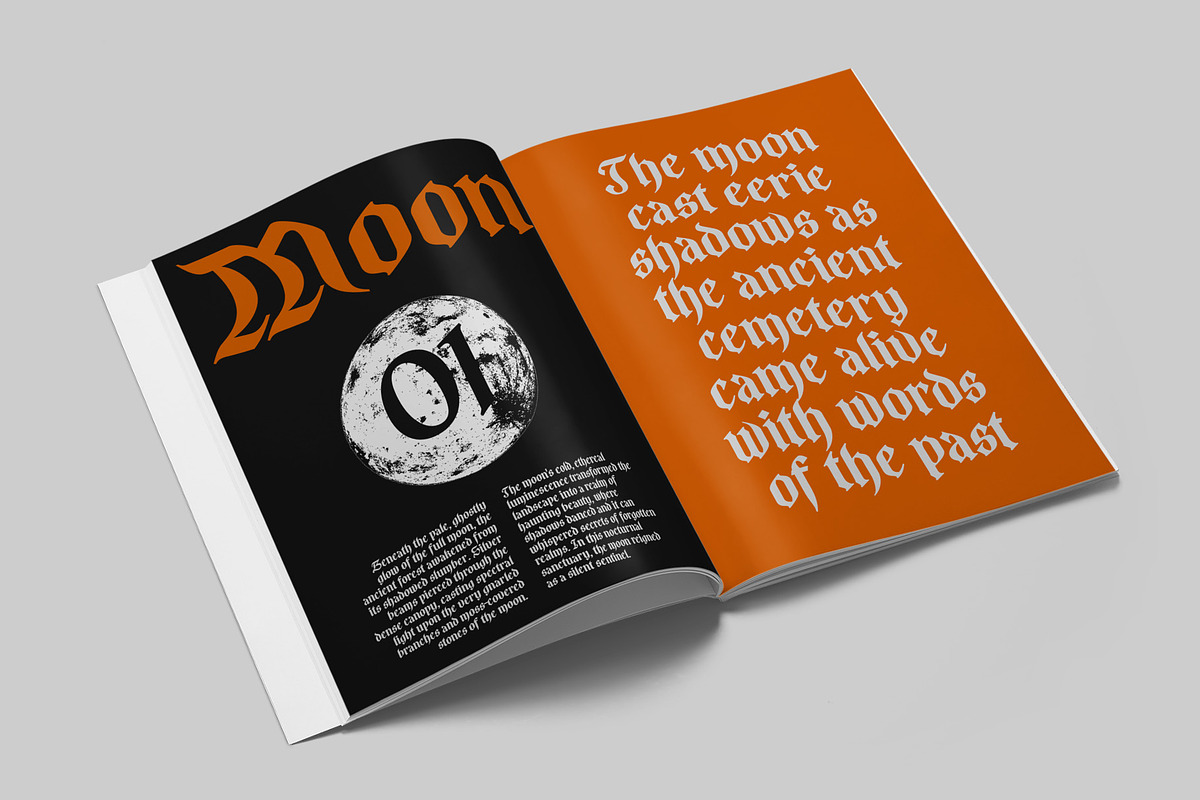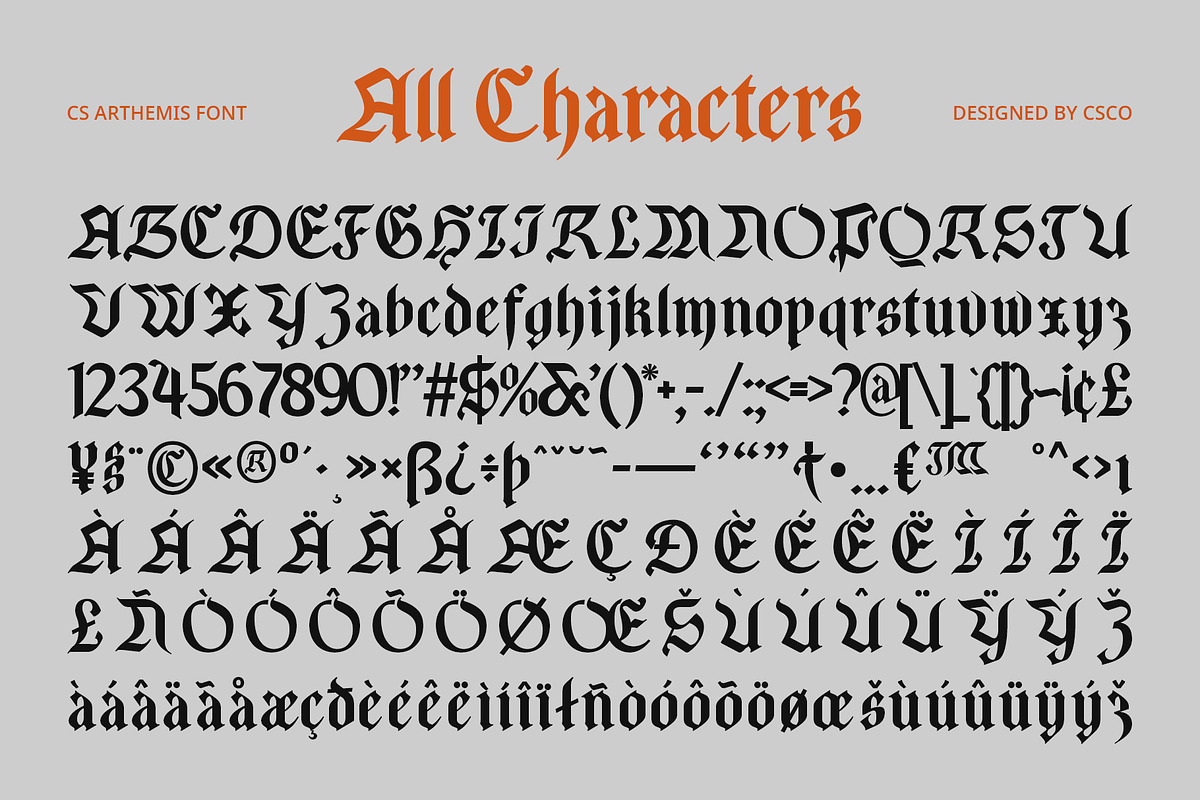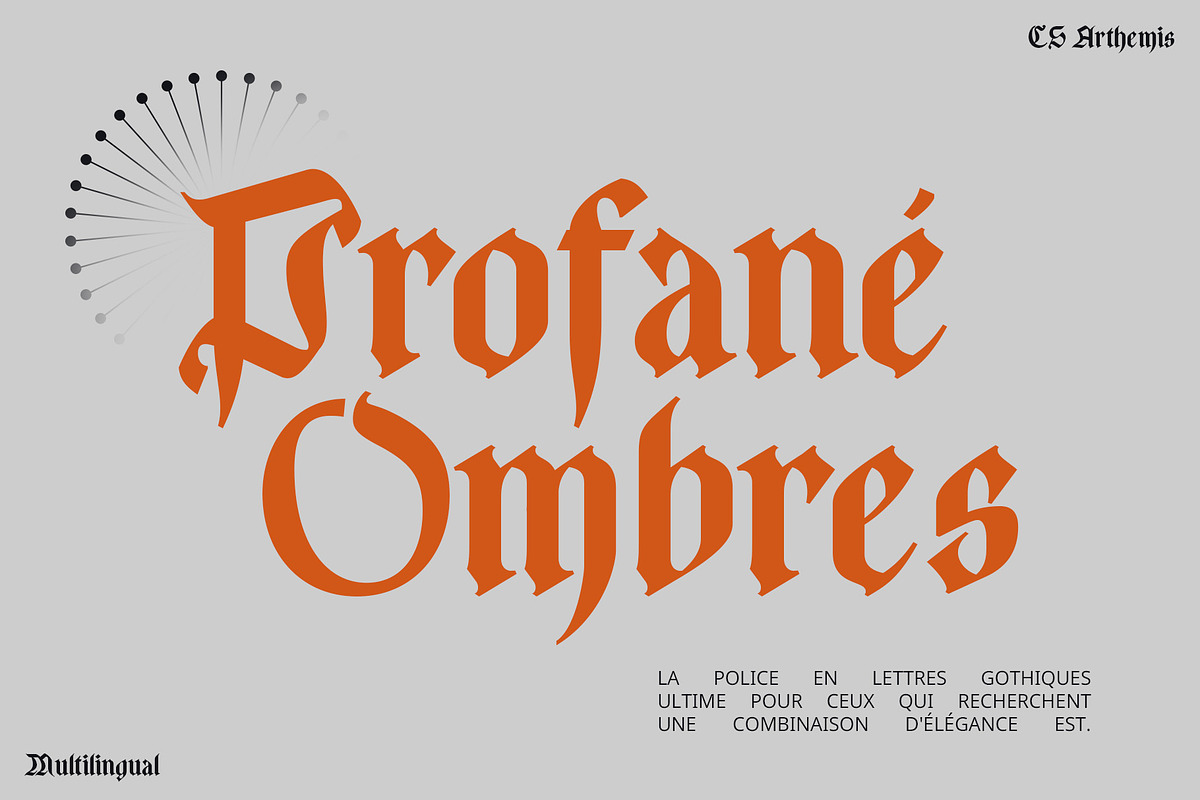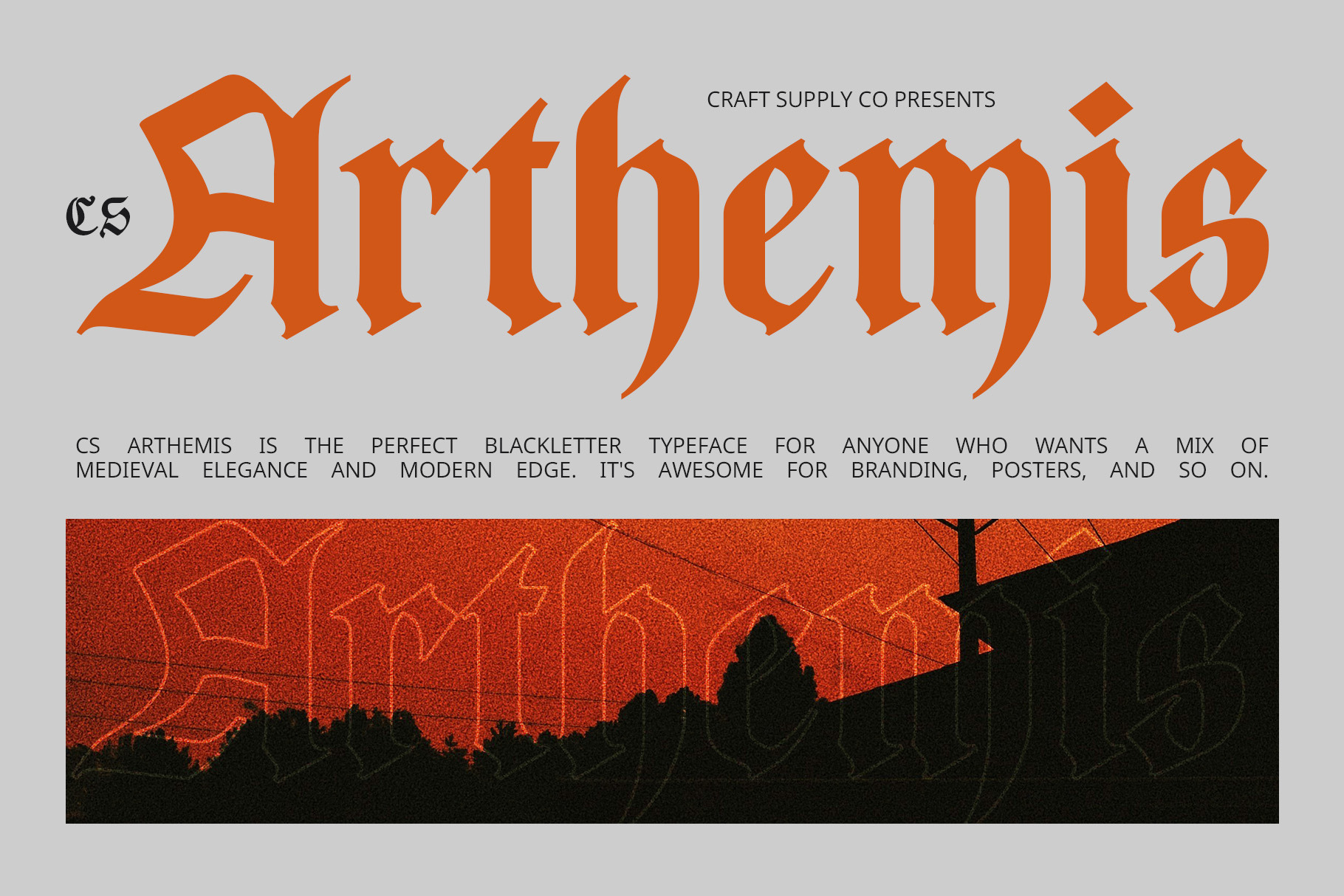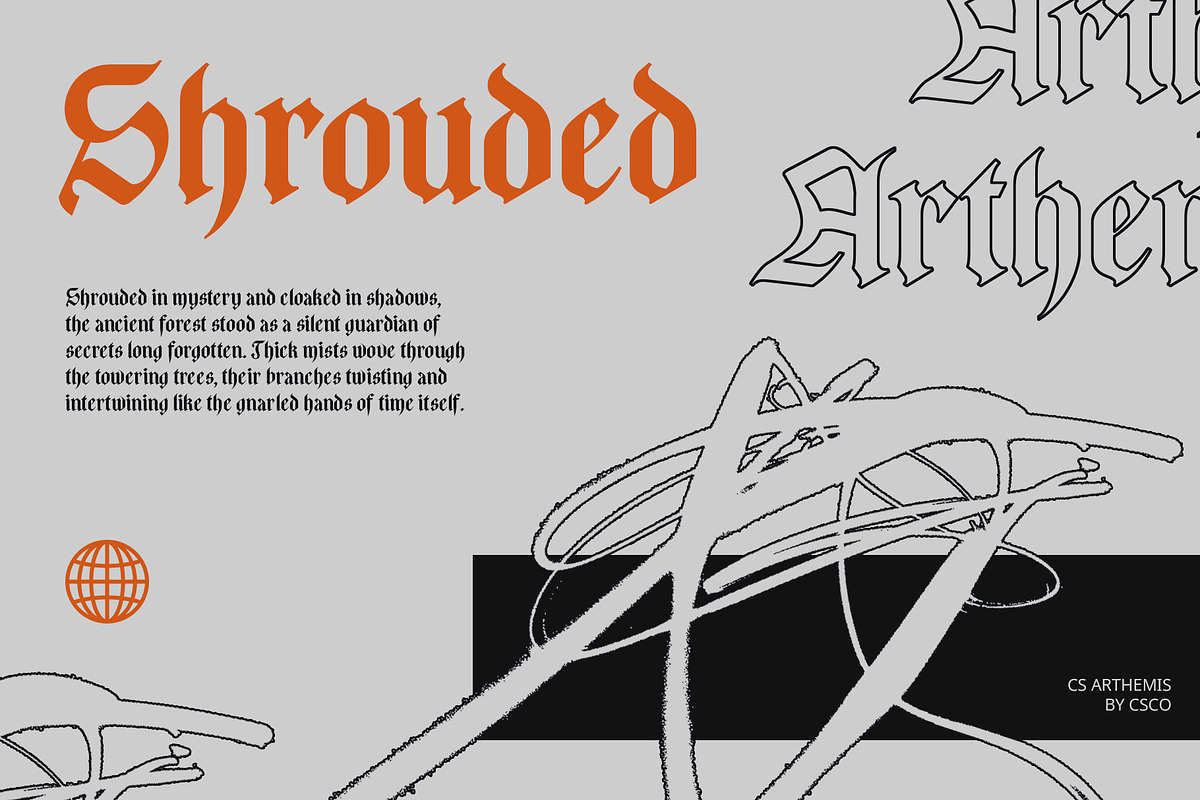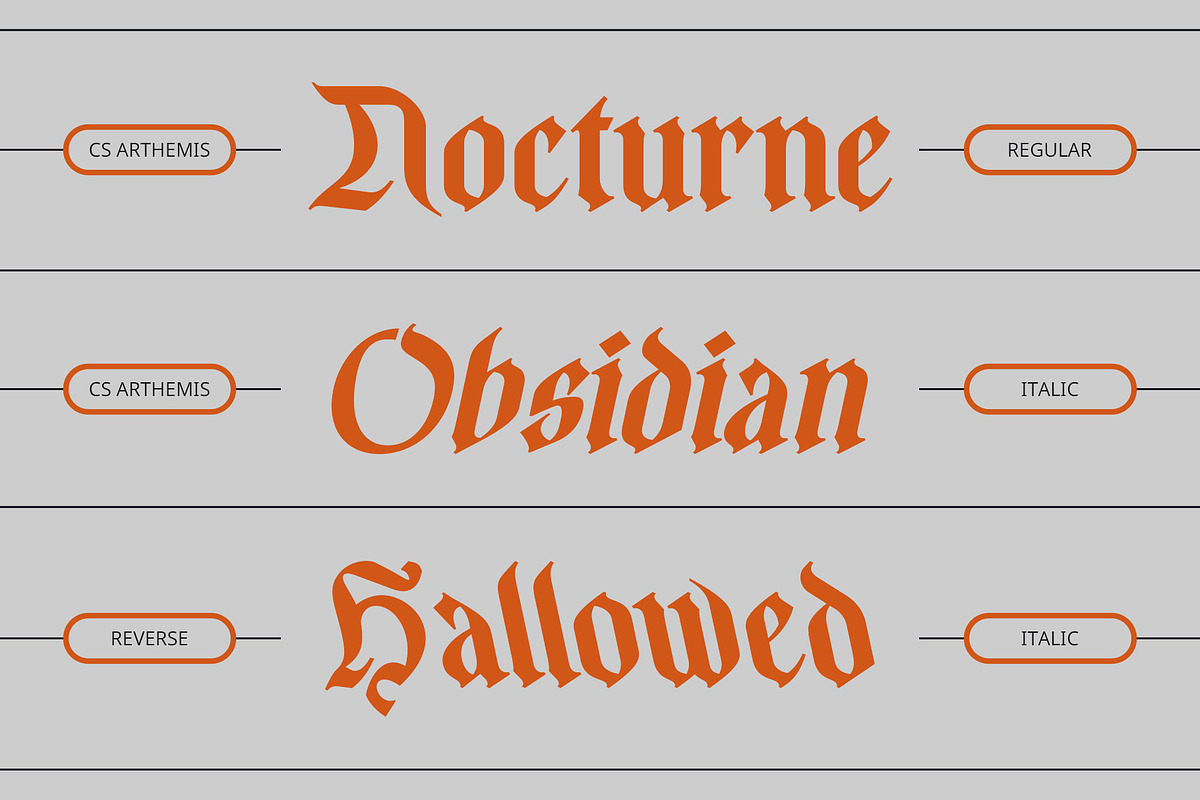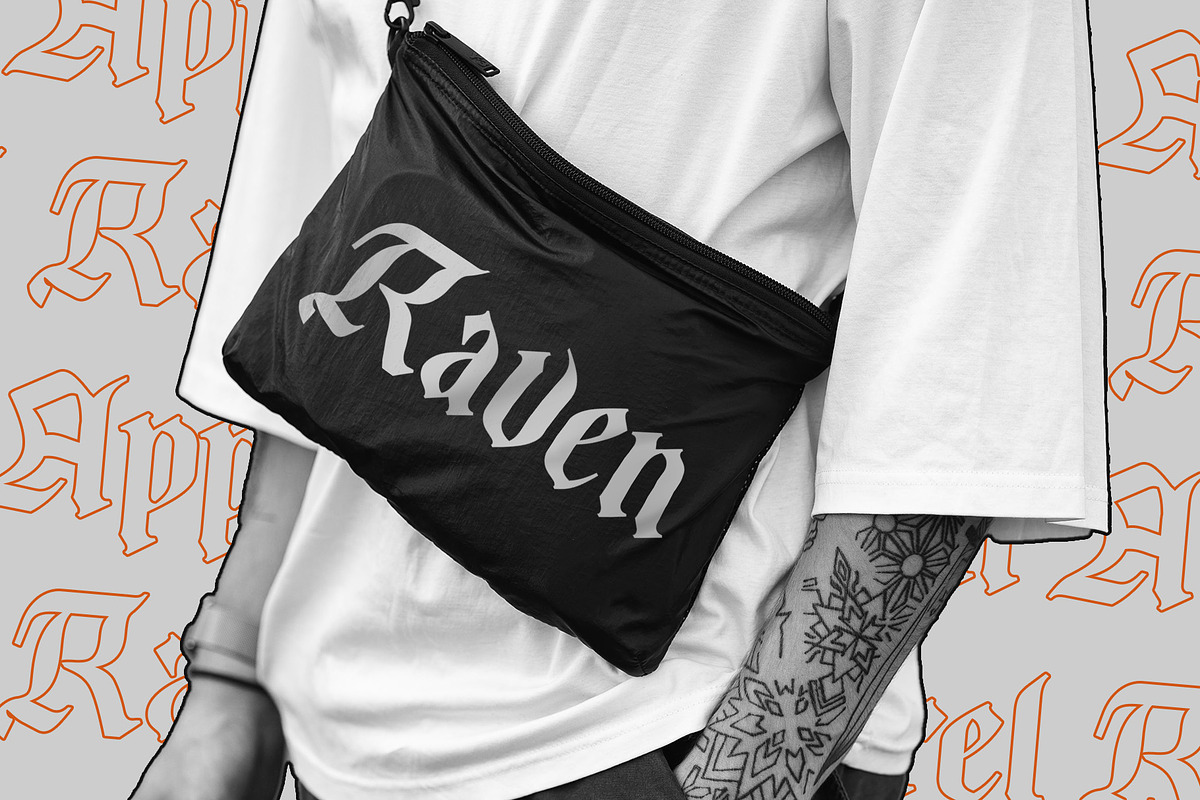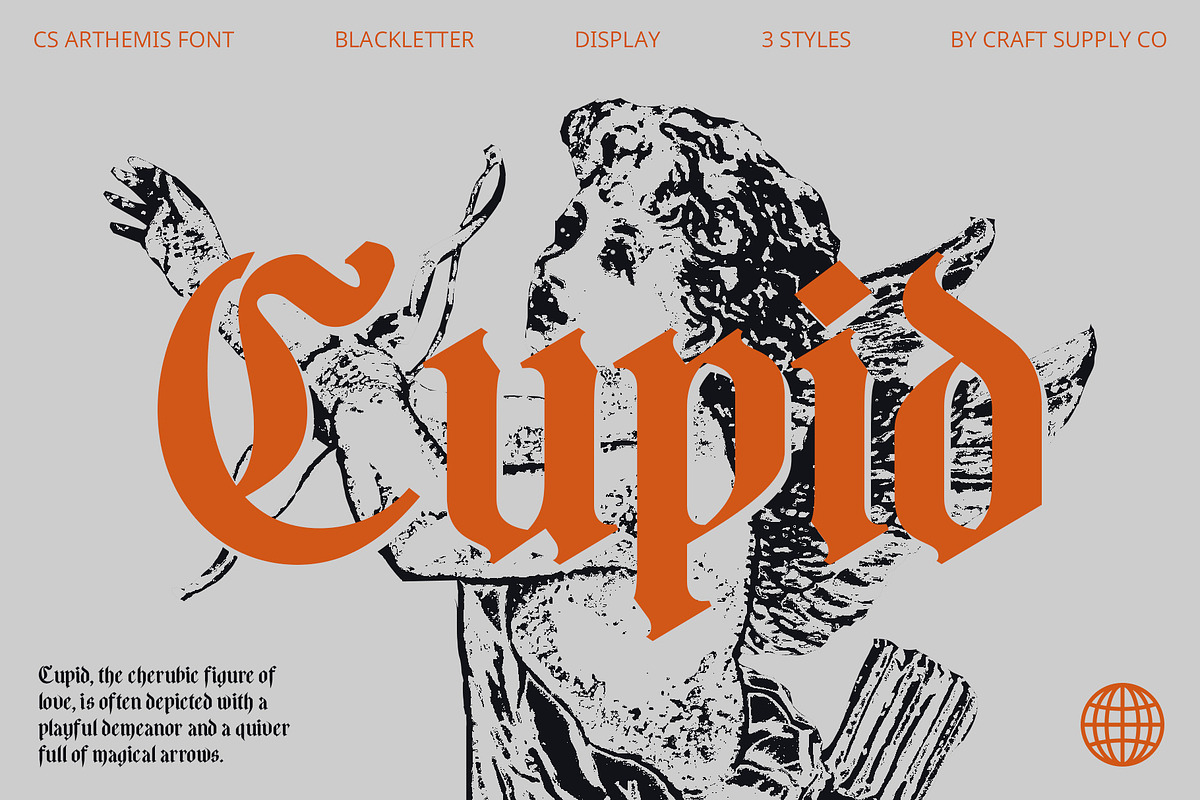
CS Arthemis – Blackletter Font
CS Arthemis – Blackletter Font: Timeless Grandeur with Gothic Charm
Medieval Blackletter Display Serif CS Arthemis is a Blackletter Medieval display serif font that marries intricate gothic letterforms with a rich historical feel. Its ornate and detailed design evokes a sense of grandeur and tradition, perfect for creating an authoritative and dramatic impression.
Ornate Design for Classic Appeal With its elaborate and rich detailing, CS Arthemis offers a dramatic visual impact that adds a touch of historical elegance to any project. This font is well-suited for luxury branding, formal invitations, and themed designs that demand a classic and timeless aesthetic.
Evokes Tradition and Authority The intricate gothic elements of CS Arthemis convey a sense of tradition and authority, making it ideal for projects that require a bold, elegant presence. Its medieval style enhances the sophistication and gravitas of luxury branding and formal design applications.
Ideal for Themed and Formal Projects Whether for high-end branding, exclusive events, or elegant invitations, CS Arthemis provides the perfect typographic solution. Its blend of historical charm and dramatic flair ensures your designs stand out with a timeless and distinguished look.
- CS Arthemis Regular
- CS Arthemis Italic
- CS Arthemis Reverse Italic